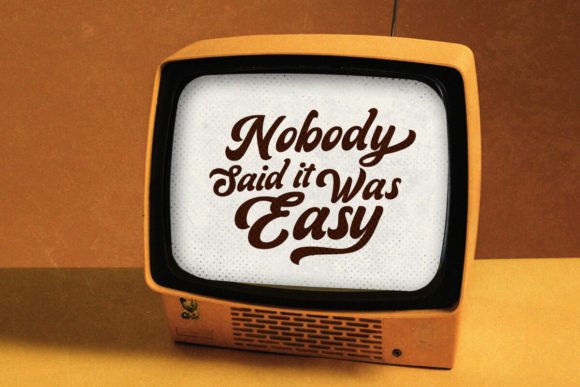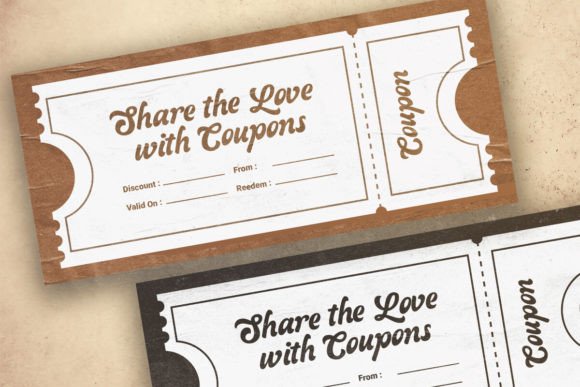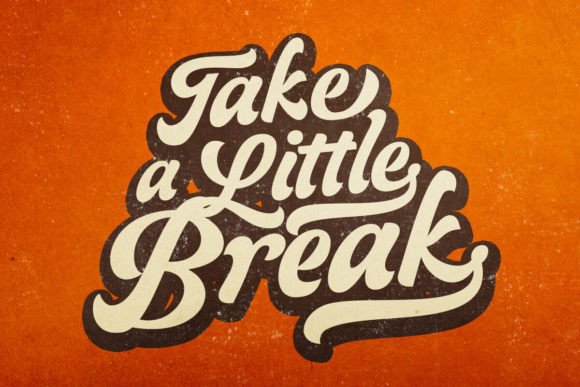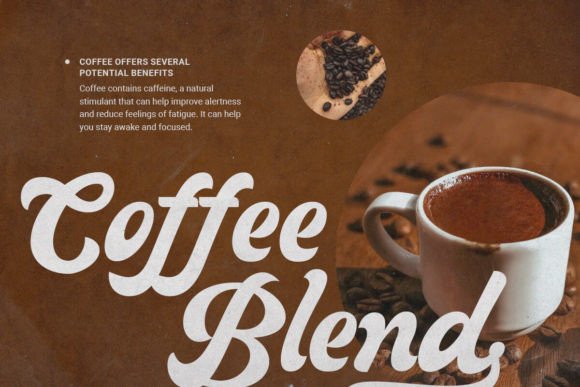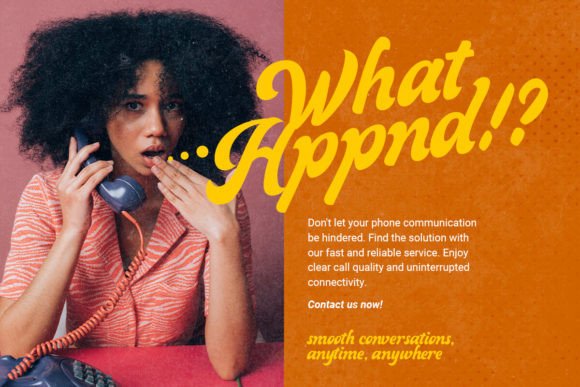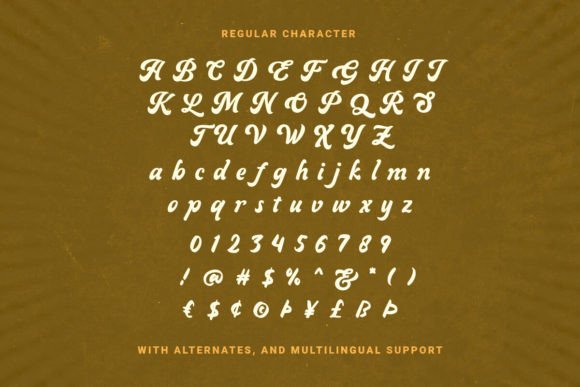
Introduction to Monde Retro Font
Have you ever found yourself pouring over old photographs, searching for inspiration for your next creative project? The faded colors, the distressed textures, and the worn-out edges all seem to whisper secrets of a bygone era. As designers, we’re constantly on the lookout for the perfect design resource to bring our visions to life. And that’s where Monde Retro Font comes in – a stunning, high-quality font that embodies the essence of vintage charm.
With its bold, hipster aesthetic and stylish alternates, Monde Retro Font is the perfect addition to any creative project. Whether you’re designing a retro-themed poster, a book cover, or a sign, this font is sure to make your project stand out. And the best part? Monde Retro Font supports multiple languages, making it a valuable asset for designers working on diverse projects. Plus, with a free download available, you can start experimenting with this design resource today – complete with a transparent background to boot.
Key Features of Monde Retro Font
- Monde Retro Font features a unique, distressed aesthetic with a vintage flair, adding a touch of nostalgia to any design
Honest Review: Monde Retro Font
As a designer, I’m always on the lookout for high-quality design resources that can elevate my creative projects. The Monde Retro Font is one such resource that caught my attention. I was excited to try it out and see how it would perform in my next project.
Here are some things that work well with the Monde Retro Font:
- ✨ The font has a unique, retro aesthetic that’s perfect for vintage-inspired designs.
However, there are some limitations to the Monde Retro Font:
- ⚠️ The font is not suitable for use in all types of designs, particularly those that require a modern or minimalist aesthetic.
- ⚠️ The font’s uniqueness can also be a drawback, as it may not appeal to all audiences.
Overall, I’m impressed with the Monde Retro Font. While it may not be suitable for every project, it’s a valuable resource for designers looking to add a touch of retro flair to their work. With a little creativity and experimentation, I’m confident that this font can help take my designs to the next level.
Tips for Getting the Most Out of Monde Retro Font
Use the Monde Retro Font for creative projects that require a unique and stylish look.
Combine the font with other design elements to create a visually appealing design.
The Monde Retro Font is perfect for:
Designing posters and flyers.
Creating social media graphics.
Adding a touch of nostalgia to your branding.